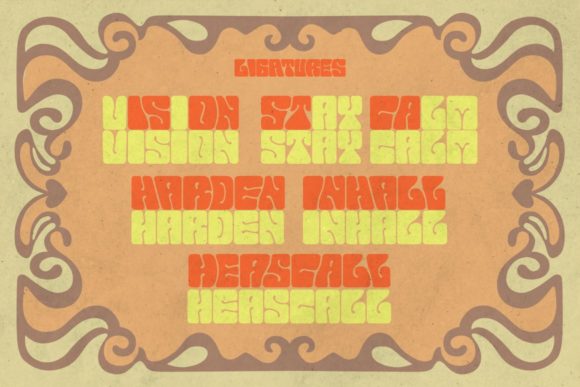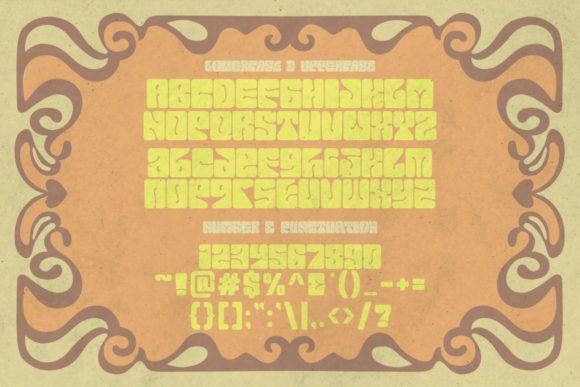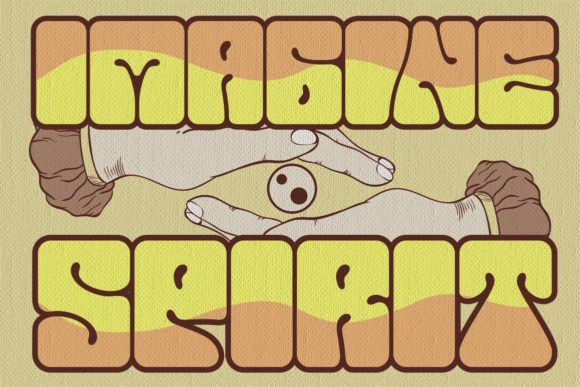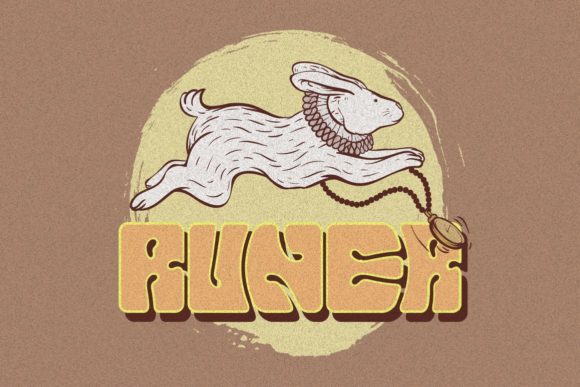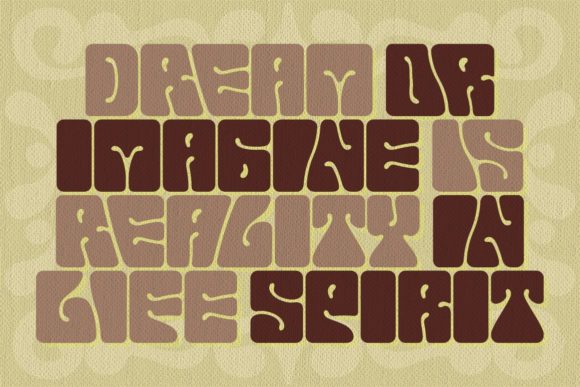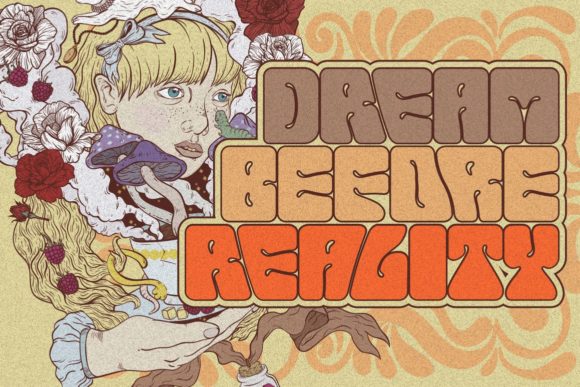
Euphoria Party Font: The Ultimate Choice for Fun and Playful Designs
Are you looking for a font that embodies playfulness and authenticity? Do you want to add a touch of retro charm to your designs? Look no further than the Euphoria Party Font! This cool, retro-styled, and chunky lettered display font is perfect for any children activity or school project. In this article, we’ll dive into the features and benefits of the Euphoria Party Font and explore how you can use it to create engaging and fun designs.
What is Euphoria Party Font?
Euphoria Party Font is a unique and eye-catching display font that is designed to bring a sense of excitement and joy to your designs. Its chunky letters and retro style make it perfect for creating fun and playful designs that appeal to children and adults alike. Whether you’re working on a children’s activity book, a school project, or a party invitation, this font is sure to make your design stand out.
Key Features of Euphoria Party Font
- Retro Style: The Euphoria Party Font has a distinct retro style that is reminiscent of classic party invitations and children’s books.
- Chunky Letters: The font features chunky letters that are perfect for creating bold and eye-catching designs.
- Playful and Authentic: The font embodies playfulness and authenticity, making it perfect for designs that require a fun and youthful vibe.
- Easy to Read: Despite its chunky style, the Euphoria Party Font is easy to read, making it perfect for designs that require a clear and legible font.
Benefits of Using Euphoria Party Font
So, why should you choose the Euphoria Party Font for your designs? Here are just a few benefits of using this amazing font:
- Adds a Touch of Fun: The Euphoria Party Font adds a touch of fun and playfulness to your designs, making them more engaging and appealing.
- Perfect for Children: The font is perfect for designs aimed at children, such as activity books, party invitations, and school projects.
- Versatile: The Euphoria Party Font can be used for a wide range of designs, from posters and flyers to invitations and social media graphics.
How to Use Euphoria Party Font
Using the Euphoria Party Font is easy! Here are a few tips to get you started:
- Pair it with Other Fonts: Pair the Euphoria Party Font with other fonts to create a unique and interesting design.
- Use it for Headings: Use the Euphoria Party Font for headings and titles to add a touch of fun and playfulness to your design.
Design Ideas Using Euphoria Party Font
- Children’s Activity Book: Create a fun and engaging children’s activity book using the Euphoria Party Font.
- Party Invitations: Use the Euphoria Party Font to create fun and playful party invitations that will get your guests excited.
- School Project: Use the Euphoria Party Font to add a touch of fun and creativity to your school project.
- Social Media Graphics: Use the Euphoria Party Font to create fun and engaging social media graphics that will stand out from the crowd.
In conclusion, the Euphoria Party Font is a fun and playful display font that is perfect for any children activity or school project. Its retro style, chunky letters, and playful vibe make it a great choice for designers and crafters who want to add a touch of excitement and joy to their designs. With its ease of use and versatility, the Euphoria Party Font is sure to become a favorite in your design arsenal.